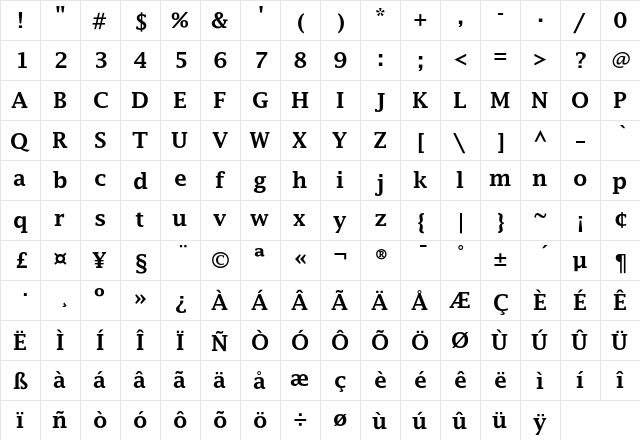
LucidaFaxEF DemiBold
Design Context for LucidaFaxEF Typeface
LucidaFaxEF is a composed and adaptable typeface that performs quietly and consistently across a wide range of design contexts. Its bold stroke weight gives it real presence on the page.